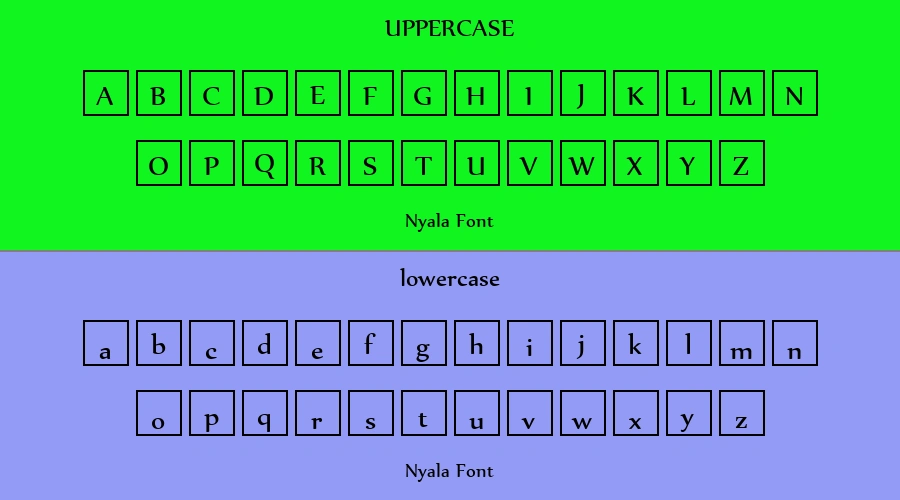
About Nyala Font
Nyala Font embodies typographic excellence through its masterful combination of ornamental details and visual impact. Created for environmental graphics, this typeface delivers exceptional reliability and professional finish across all applications. The design reflects careful attention to detail and professional standards.
Advanced capabilities include distinctive hairline details and versatile lining figures, giving designers creative control. When used in footnotes, Nyala Font exhibits remarkable output consistency. The harmonious balance between corner treatment and technical innovation sets this typeface apart.